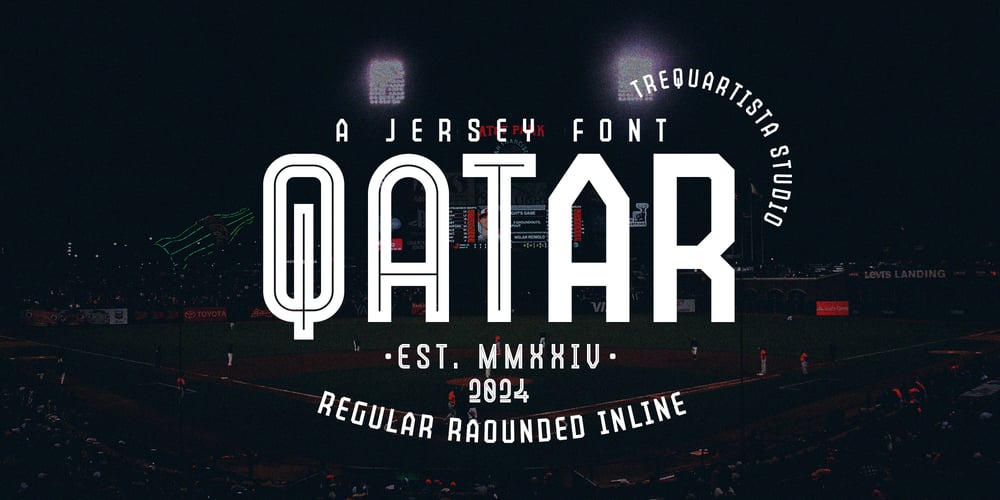
Qatar Font Family was designed by Muhammad Afif Ersya and published by Trequartista Studio. Qatar contains 6 styles and family package options. Presenting Qatar, a condensed sport Typeface. Mudhead has 3 Style and matching italics. This typeface has a clean and athletic look. Qatar is bold, vibrant with sharp slab serifs and competitive appearance, therefore excellent to use for headers, logos, jersey, captions and posters, especially for the sports branding industry, but just as good for any other projects.